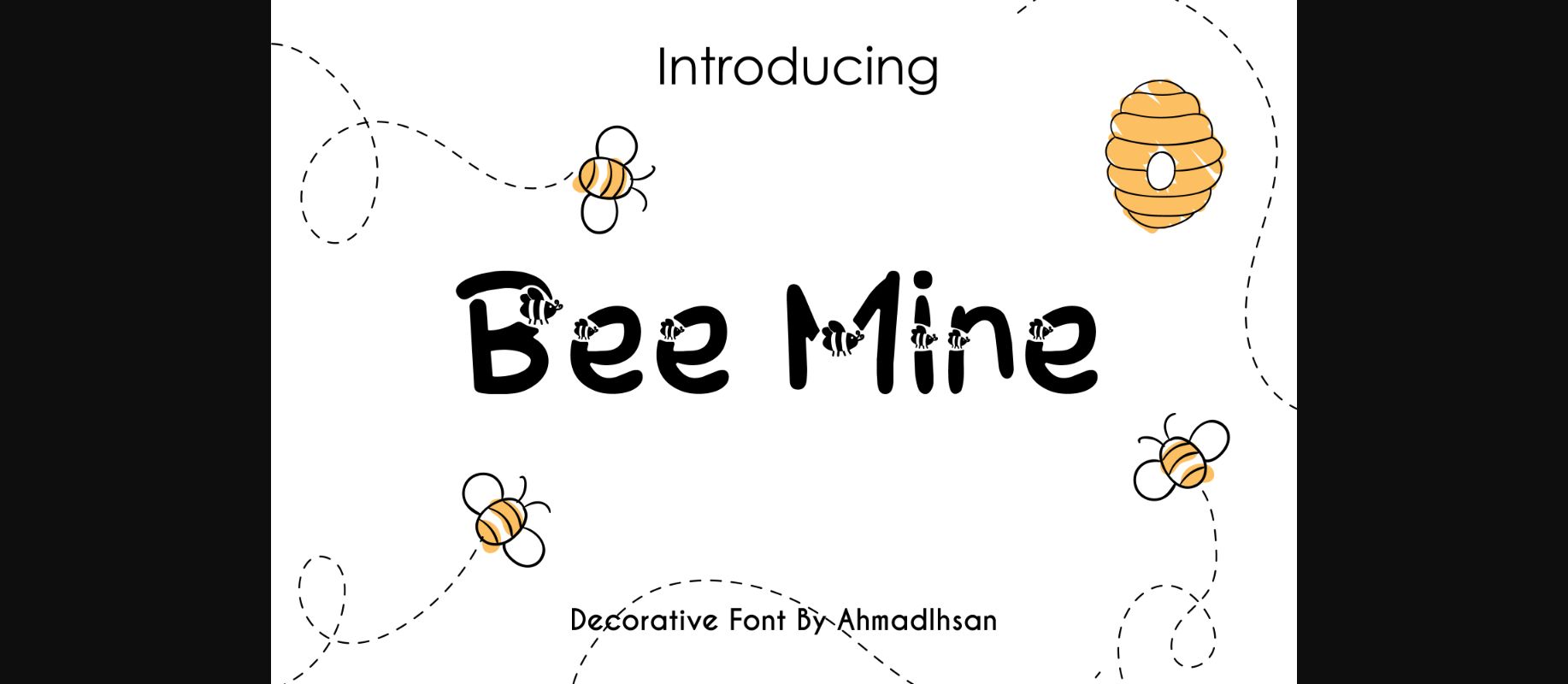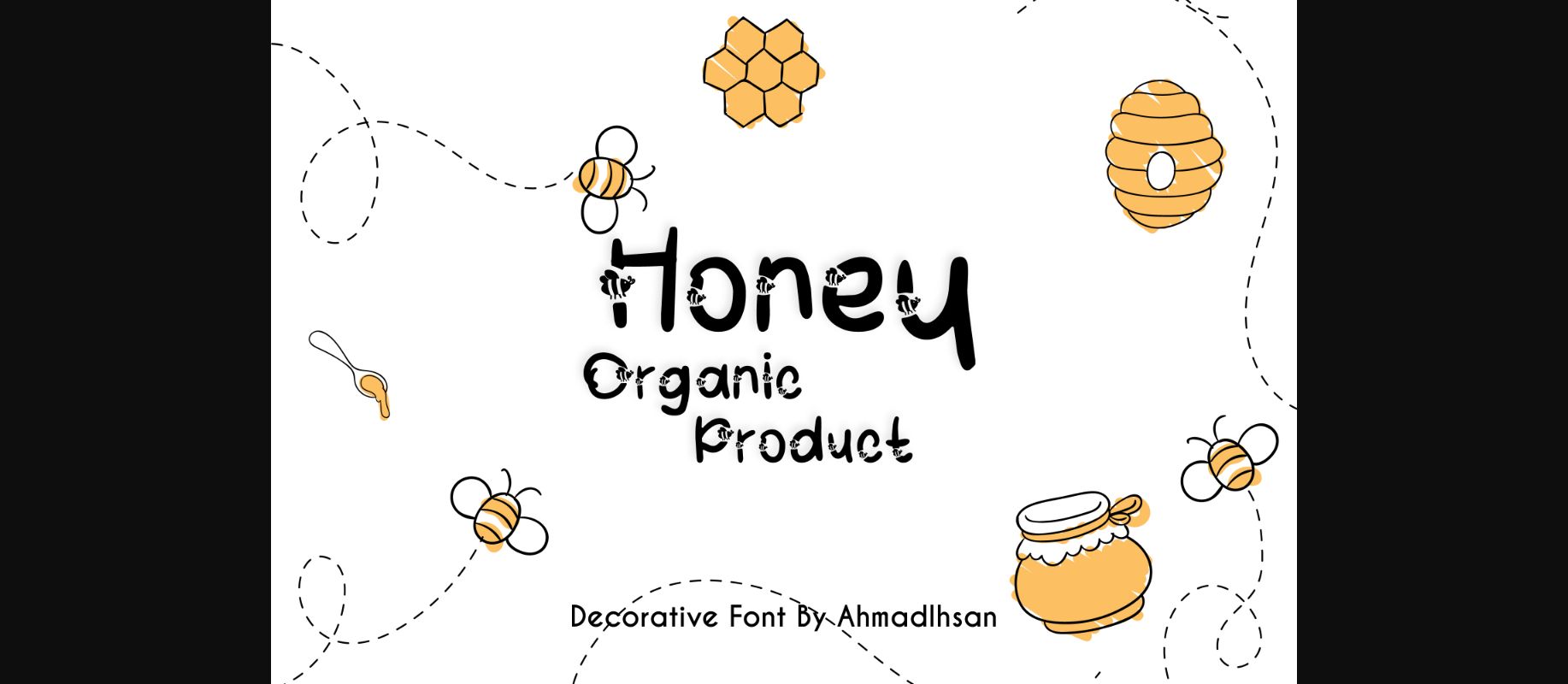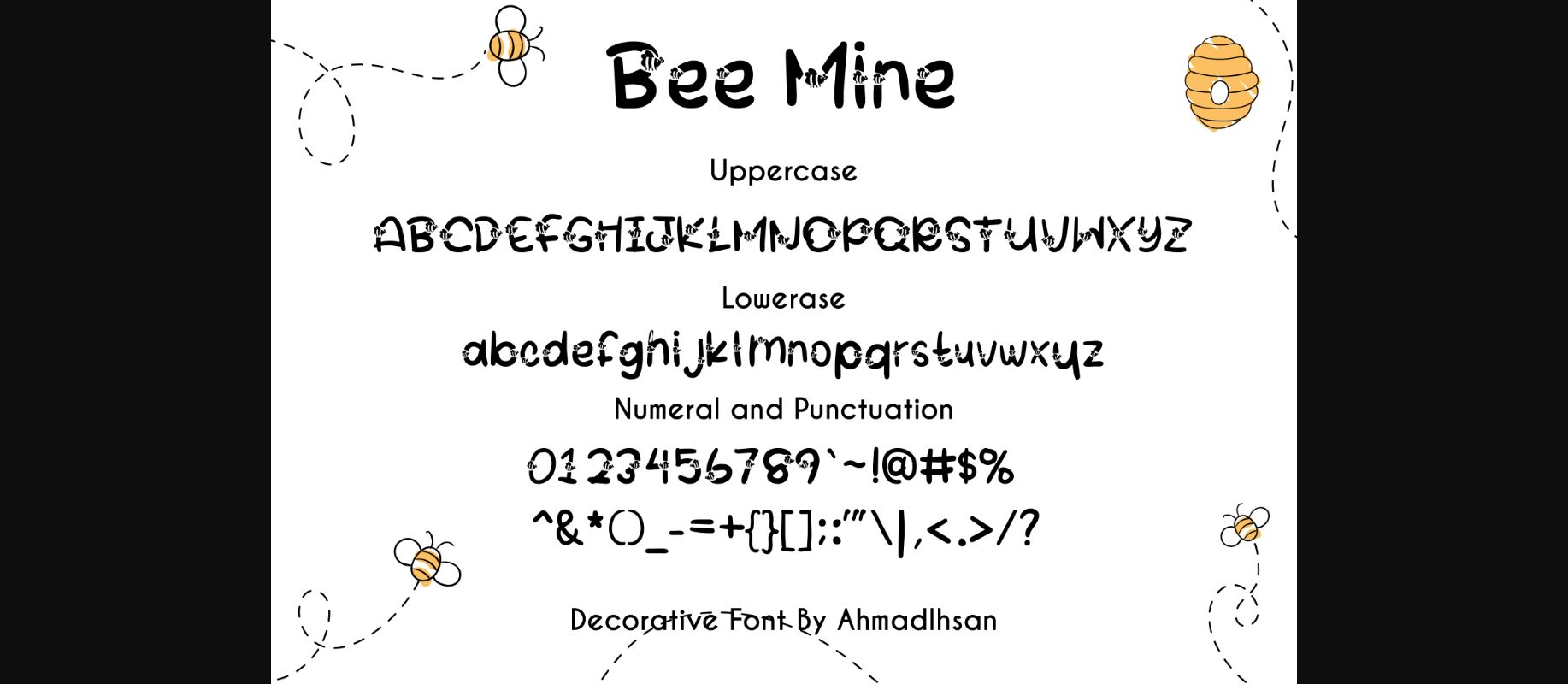
About Bee Mine Font
Bee Mine is a sweet decorative font, featuring lovely bee ornaments. Fall in love with its authentic feel and use it to create gorgeous wedding invitations, beautiful stationary art, eye-catching social media posts, and cute greeting cards.